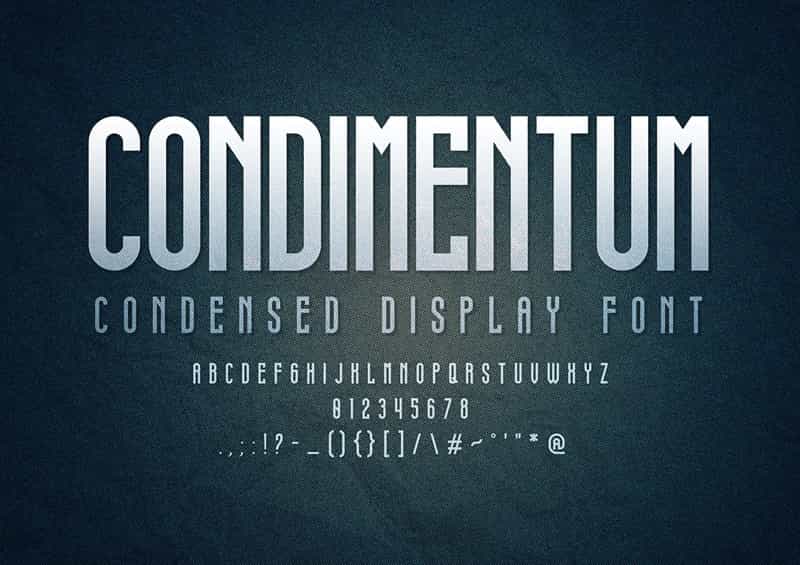
Condimentum is a contemporary display typeface influenced by the Soviet Period with caps & lowercase letters, numbers and symbols. You’d like to design cards for greetings or a packaging design, or perhaps branding, a or any other DIY project or book title or wedding font with a pop-vintage design and retro designs, or even any other reason to make your project of art or design look stylish and chic?